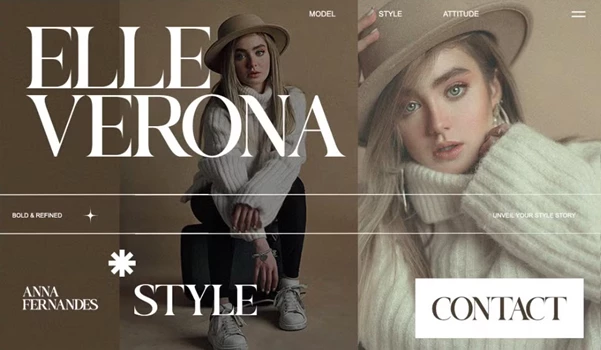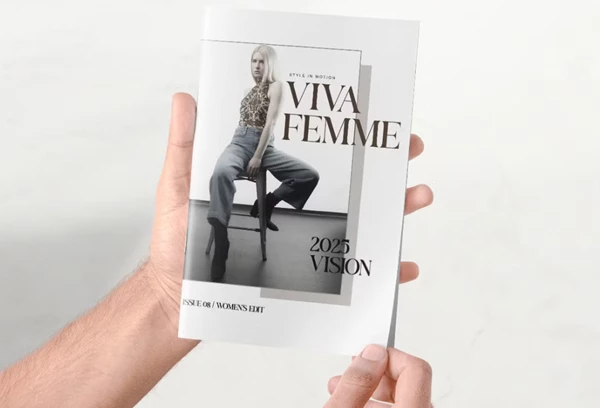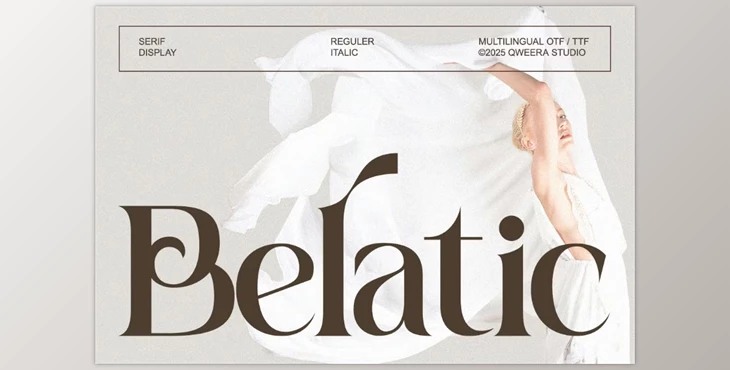
Belatic - Modern Elegant Display Logo Font:
Belatic is a chic serif typeface. Belatic is a bold and beautifully engineered font with a touch of classic style. With sharp serifs, appealing contrast, and lovely curves, Belatic will make any project luxurious, modern, and high-end. Belatic is perfect for branding, logos, magazines, packaging, and editorial work due to its modern-classic appeal and versatility. Belatic will represent your brand, creativity, and elegance.
Some great features of Belatic - Modern Elegant Display Logo Font:
- Modern, elegant serif display
- Regular & Italic styles
- Stylish alternates & ligatures
- Uppercase & lowercase support